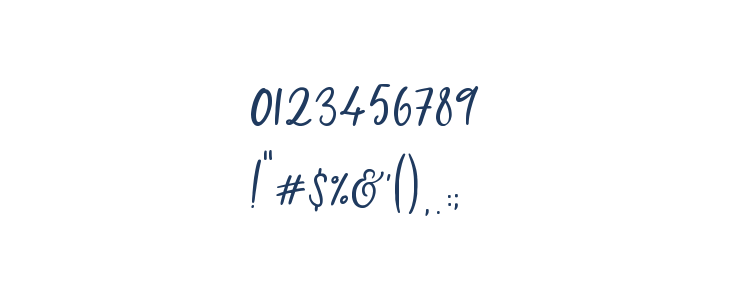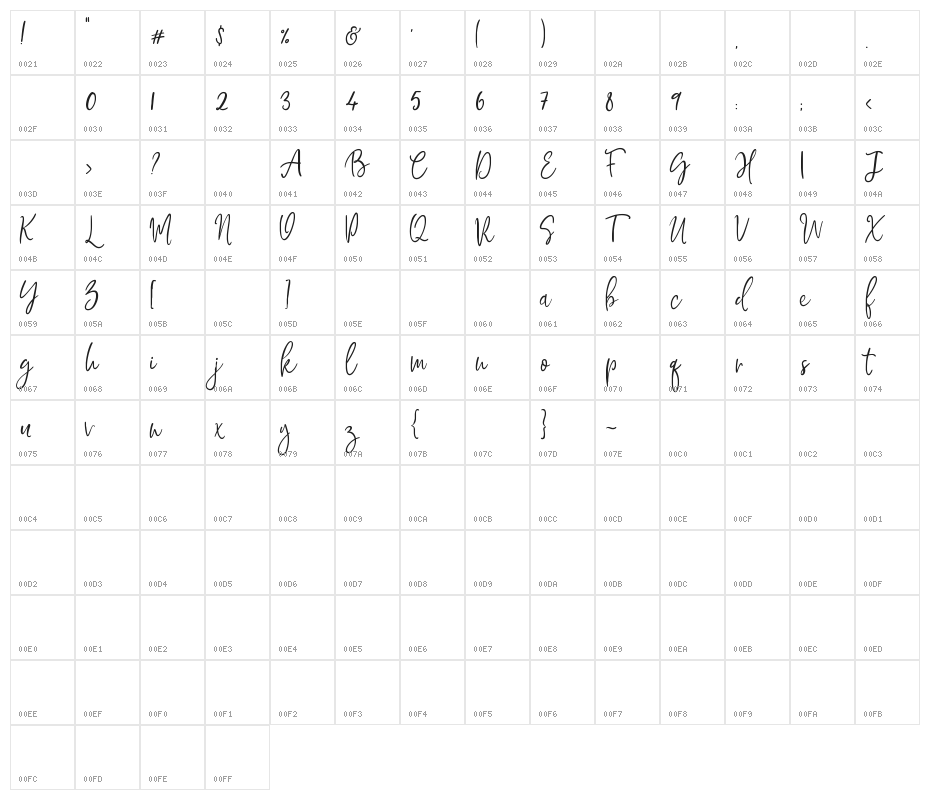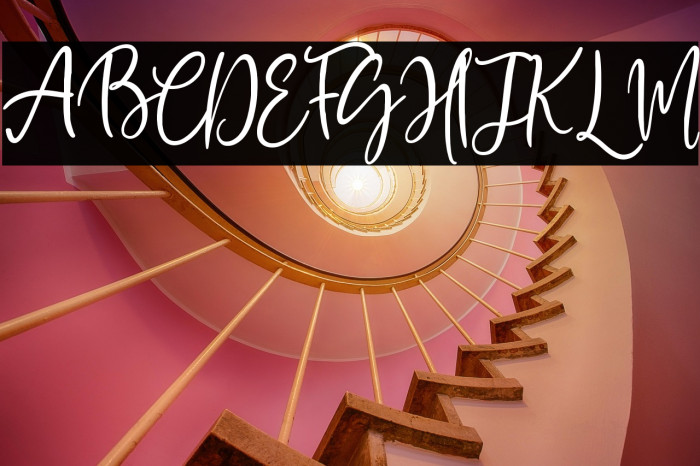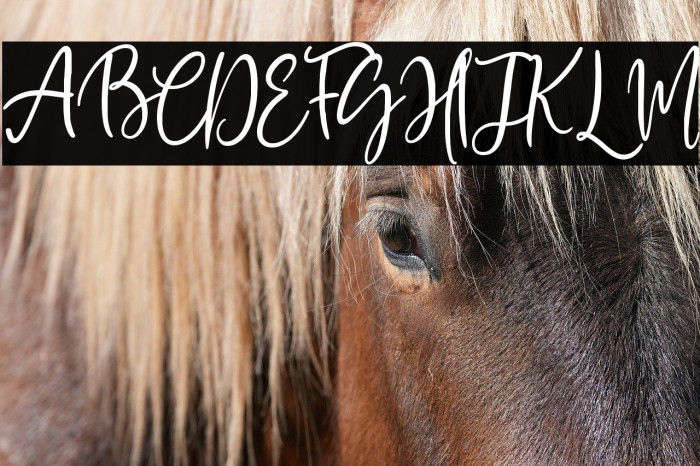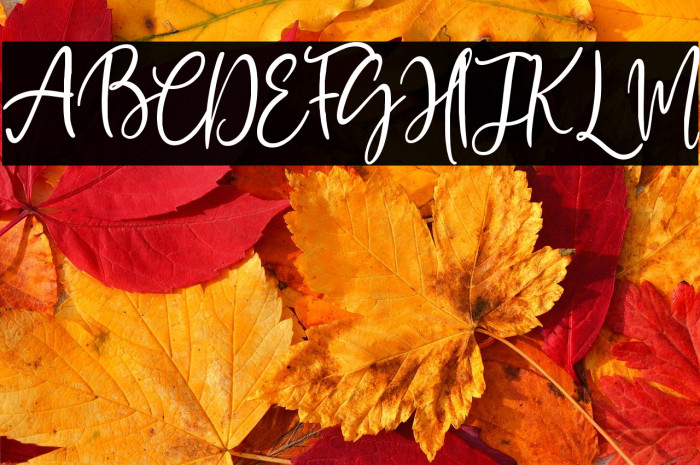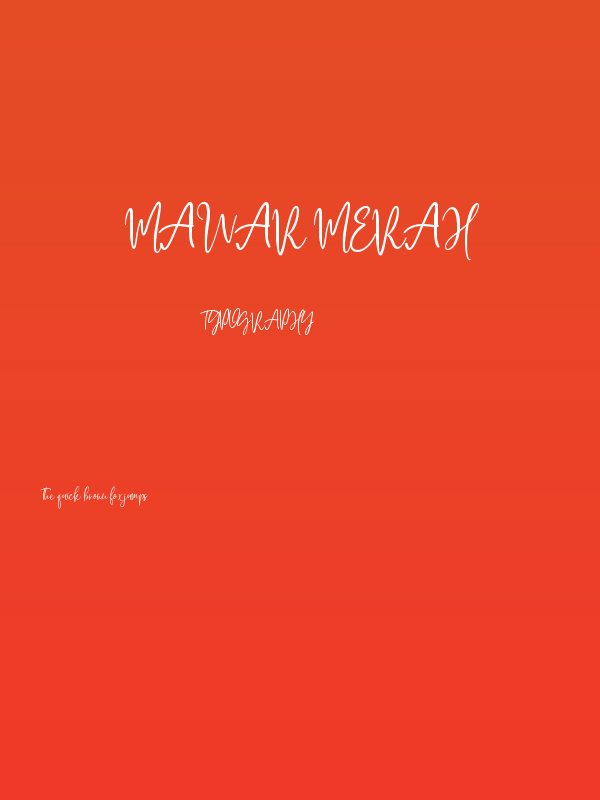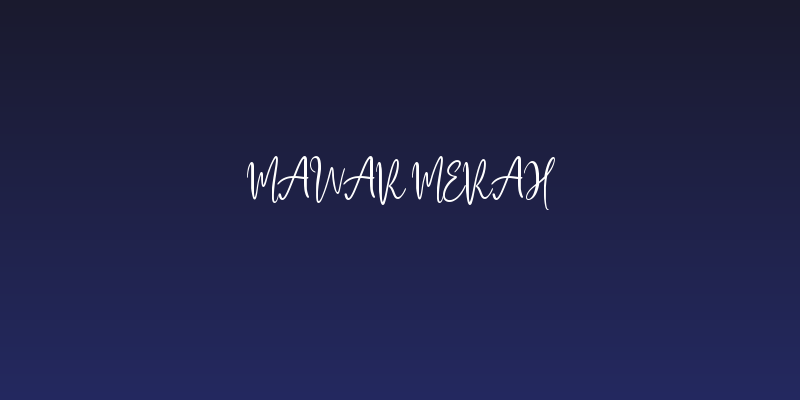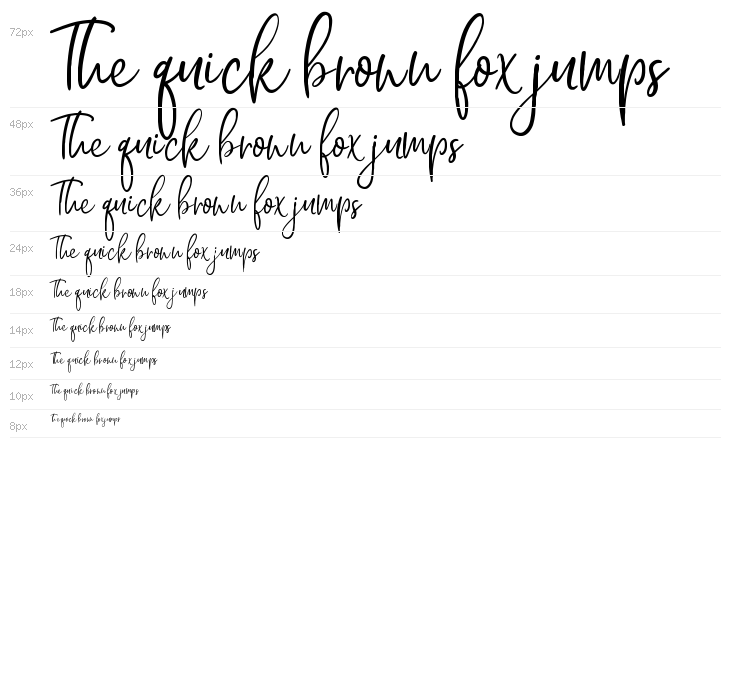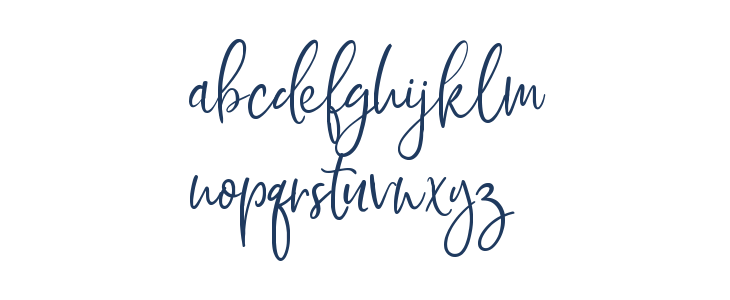
Mawar Merah Font
Mawar Merah Description
This font exudes a lively and expressive character with its flowing script style. The letters are interconnected, giving a sense of continuity and elegance. The uppercase letters are bold and prominent, while the lowercase letters maintain a consistent flow, adding to the overall harmony of the design. The numerals are clear and distinct, matching the playful yet sophisticated style of the alphabet. Special characters are creatively integrated, maintaining the font's artistic flair. This font is perfect for projects that require a personal touch, such as invitations, greeting cards, or branding materials.